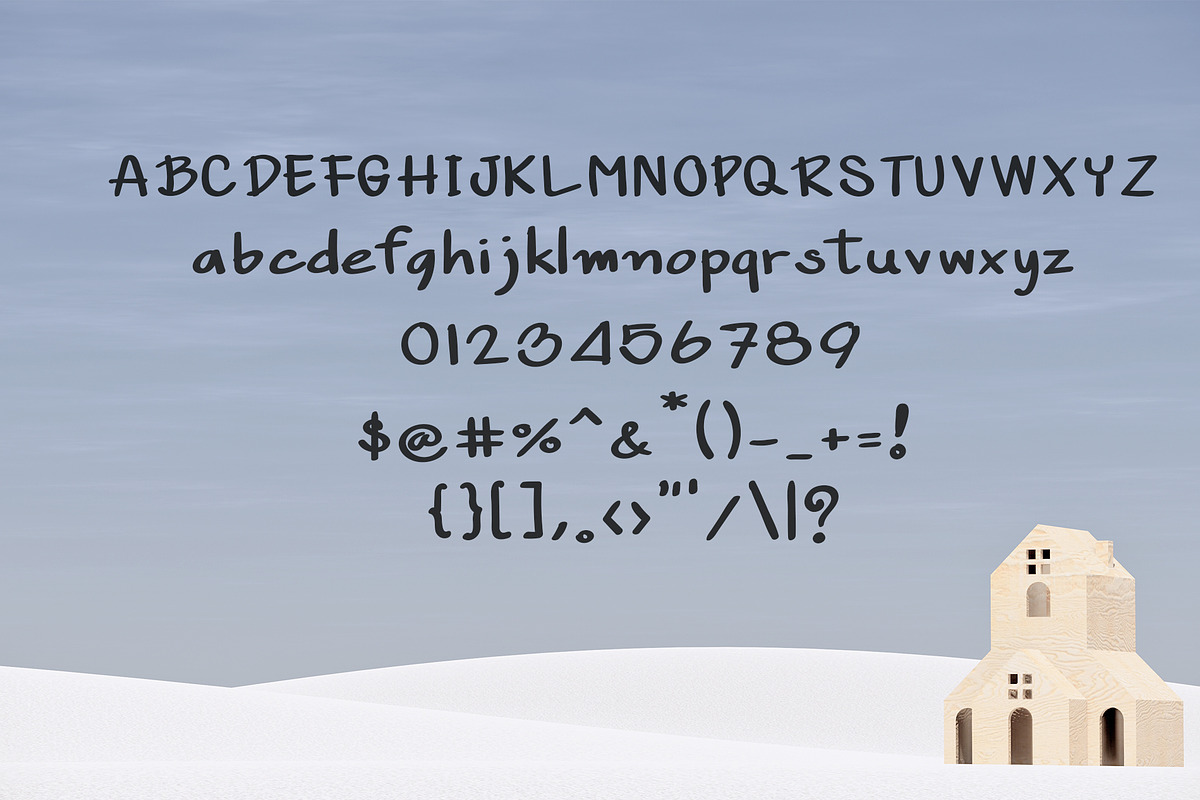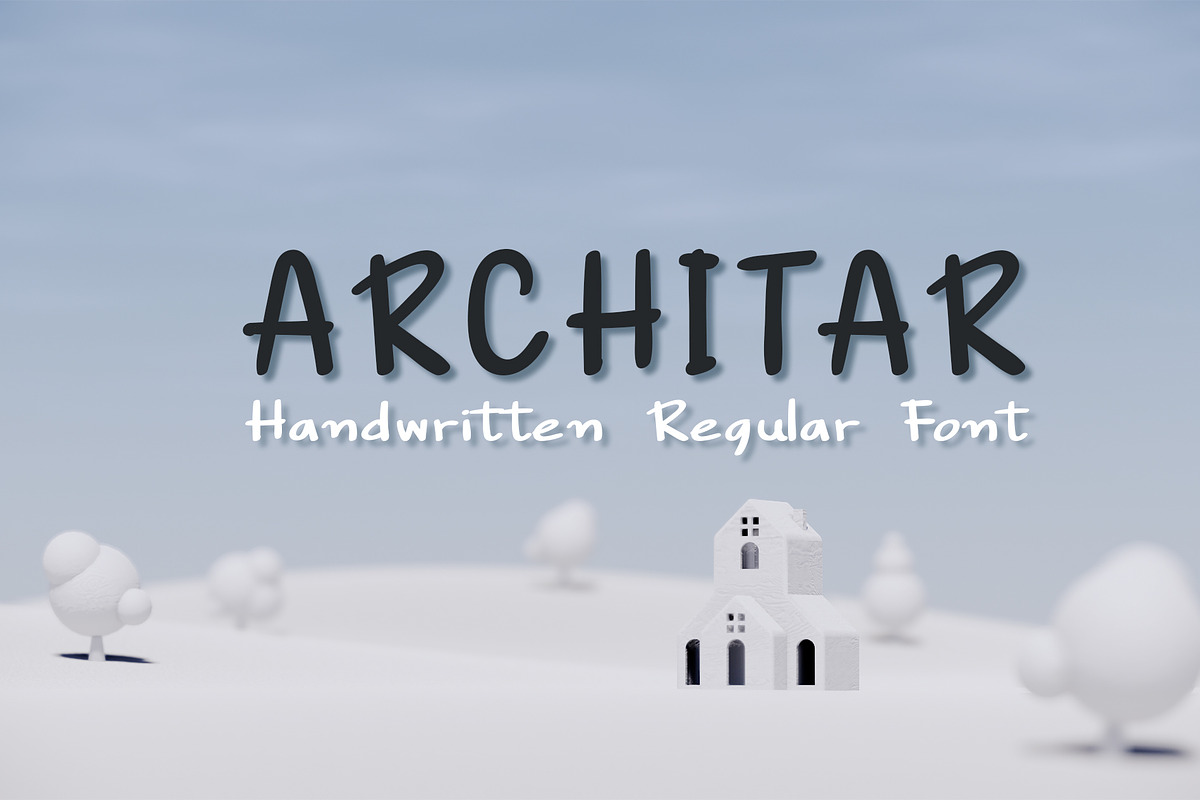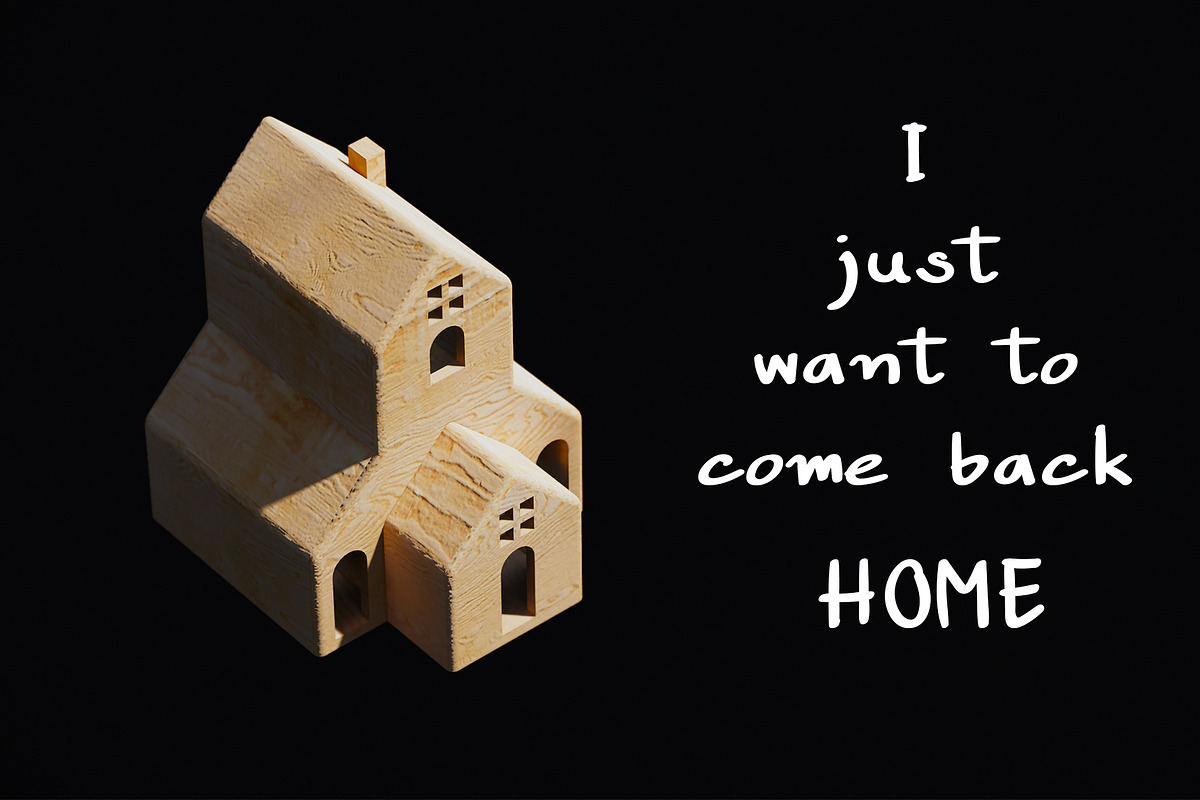
Architar Font
Architar is a handwritten character using thick lines. You can use it to write highlighter topics. Semi-formal character style To look good, playful and more interesting Then you will love it!
Architar Font by skyclick fits naturally into Branding, posters, packaging, typography.